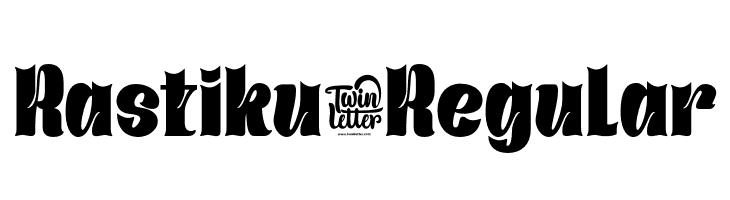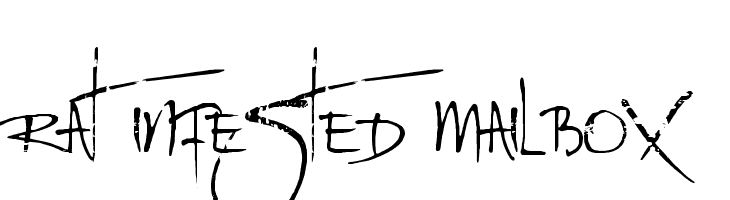
( Fonts by twinletter )
A bold, expressive font with thick strokes and a playful style.
( Fonts by Milea Sajojo )
A fluid and elegant cursive script with medium contrast.
( Fonts by Letterena Studios )
Elegant handwritten script font.
A lively, cursive font with a playful and artistic handwriting style.
A flowing, cursive script font with elegant, interconnected characters.
An elegant script font with flowing, cursive lines and ornate uppercase letters.
( Fonts by David Kerkhoff - www.hanodedphotography.com )
A chaotic, distressed font with erratic strokes and a rebellious aesthetic.
( Woodcutter - woodcutter Manero - www.woodcutter.es )
A bold, playful font with a hand-drawn, quirky style.
A bold, cursive font with a flowing, handwritten style.
A bold, dynamic script font with a cursive, handwritten style.